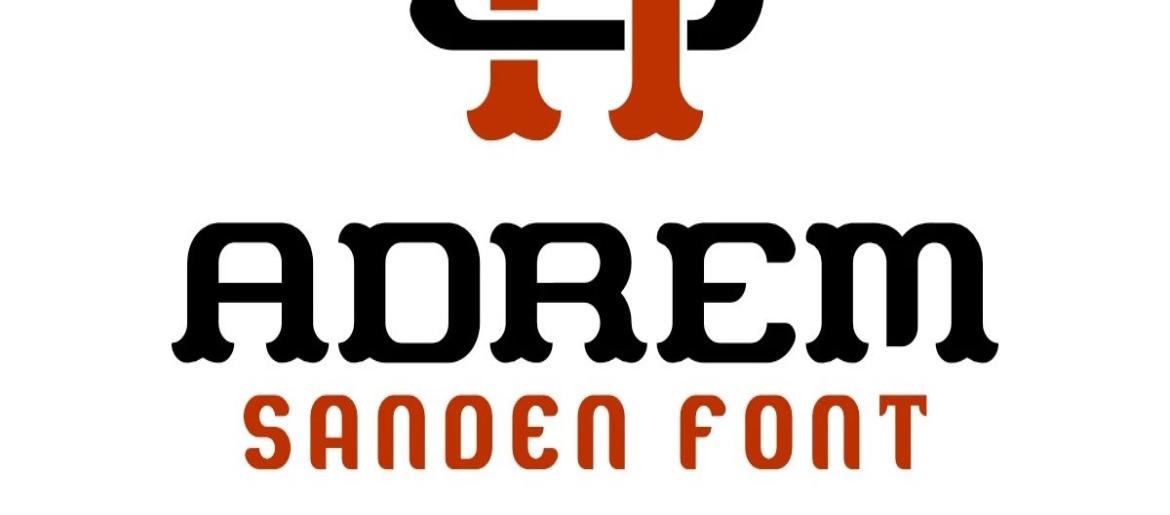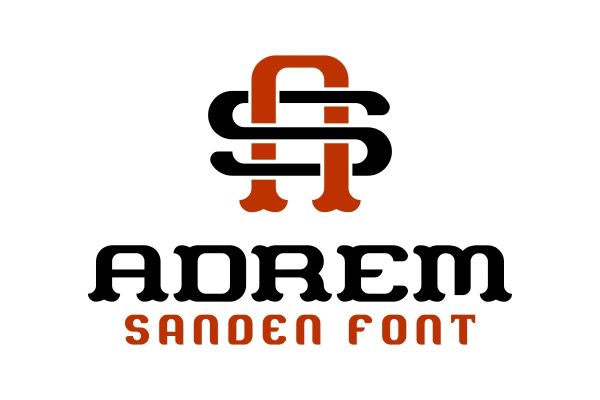
Adrem Sanden Font
Adrem Sanden Font is a slab serif inspired display typeface designed to add layered detail and strengthen visual impact. This uppercase-only design delivers bold, structured letterforms that create a powerful presence. Ideal for posters, branding, headlines, and statement graphics, it enhances strong compositions and works well within striking and impactful free fonts collections.
➤ Style: Slab Serif